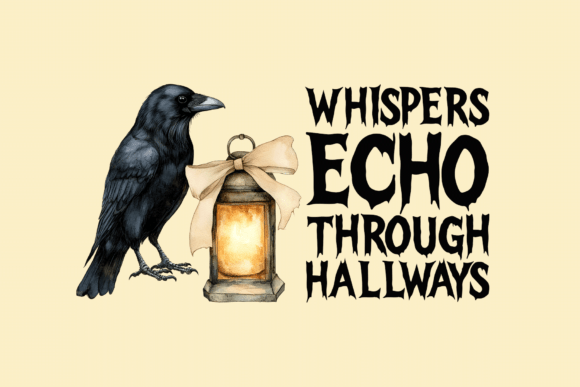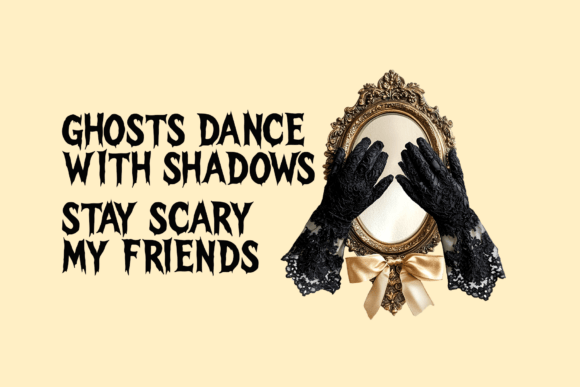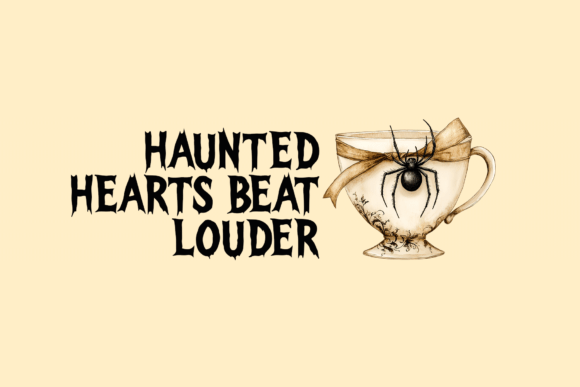
Unleash the Spook: Exploring the Eerie Elegance of Ghost Touch Font
In the realm of typography, few fonts capture the essence of the mysterious and the unknown as effectively as the Ghost Touch Font. This distinctive haunted display typeface has emerged as a go-to choice for designers and crafters looking to infuse their projects with a touch of the eerie and the supernatural. Ideal for a wide range of creative endeavors, Ghost Touch works seamlessly across various mediums, including logos, stationery, apparel, web headers, flyers, posters, and more. Its unique ability to add a mysterious flair to every design makes it a versatile tool in the creative arsenal.
The Allure of Ghost Touch Font
Ghost Touch Font stands out with its inherently spooky and mystical vibe, making it perfect for projects that require a dash of the paranormal or a hint of gothic charm. Its design is meticulously crafted to evoke a sense of mystery and intrigue, allowing designers to convey complex emotions and themes through their work. Whether it’s for a Halloween-themed project, a brand identity that wants to stand out with an otherworldly appeal, or simply to add an element of surprise and whimsy, Ghost Touch Font delivers.
Versatility Across Design Projects
One of the key strengths of Ghost Touch Font is its incredible versatility. It doesn’t limit itself to just one type of project; instead, it can elevate a multitude of designs. Here are some ways Ghost Touch can be incorporated into various creative projects:
- Logos: A memorable logo often leaves a lasting impression. Ghost Touch can help create a unique and captivating logo that embodies the essence of mystery and intrigue.
- Stationery: Adding a touch of the supernatural to letters, invitations, or cards can make them stand out. Ghost Touch brings an element of the unknown to your written communications.
- Apparel: From t-shirts to hoodies, incorporating Ghost Touch into apparel designs can give wearers a stylish edge that’s hard to overlook.
- Web Headers: Websites focused on mystery, fashion, or the supernatural can benefit from Ghost Touch, instantly conveying their theme to visitors.
- Flyers and Posters: For events, promotions, or informational campaigns with a mysterious or gothic theme, Ghost Touch can significantly enhance visual appeal and engagement.
Why Designers and Crafters Love Ghost Touch
The popularity of Ghost Touch Font among designers and crafters can be attributed to several factors:
- Ease of Use: Despite its complex appearance, Ghost Touch is surprisingly easy to use, making it accessible to both professionals and hobbyists.
- Customization: The font offers a range of customization options, allowing designers to adapt it to fit their project’s specific needs.
- Timeless Appeal: Unlike trends that fade with time, Ghost Touch has a timeless quality that ensures designs remain relevant and captivating for years to come.
Tips for Using Ghost Touch Effectively
To get the most out of Ghost Touch Font, consider the following tips:
- Pair with Complementary Fonts: For optimal results, pair Ghost Touch with simpler fonts to maintain visual balance and ensure readability.
- Experiment with Colors: While the font itself is striking, experimenting with different colors can further enhance its mysterious appeal.
- Consider the Context: Ensure that the use of Ghost Touch aligns with the project’s theme and audience to maximize its impact.
In conclusion, Ghost Touch Font is a powerful tool for designers and crafters aiming to imbue their projects with a sense of mystery and intrigue. Its versatility, combined with its distinctive haunted display, makes it an excellent choice for a wide range of applications. By incorporating Ghost Touch into their designs, creatives can ensure their work stands out in a crowded digital landscape, captivating audiences with its eerie elegance.